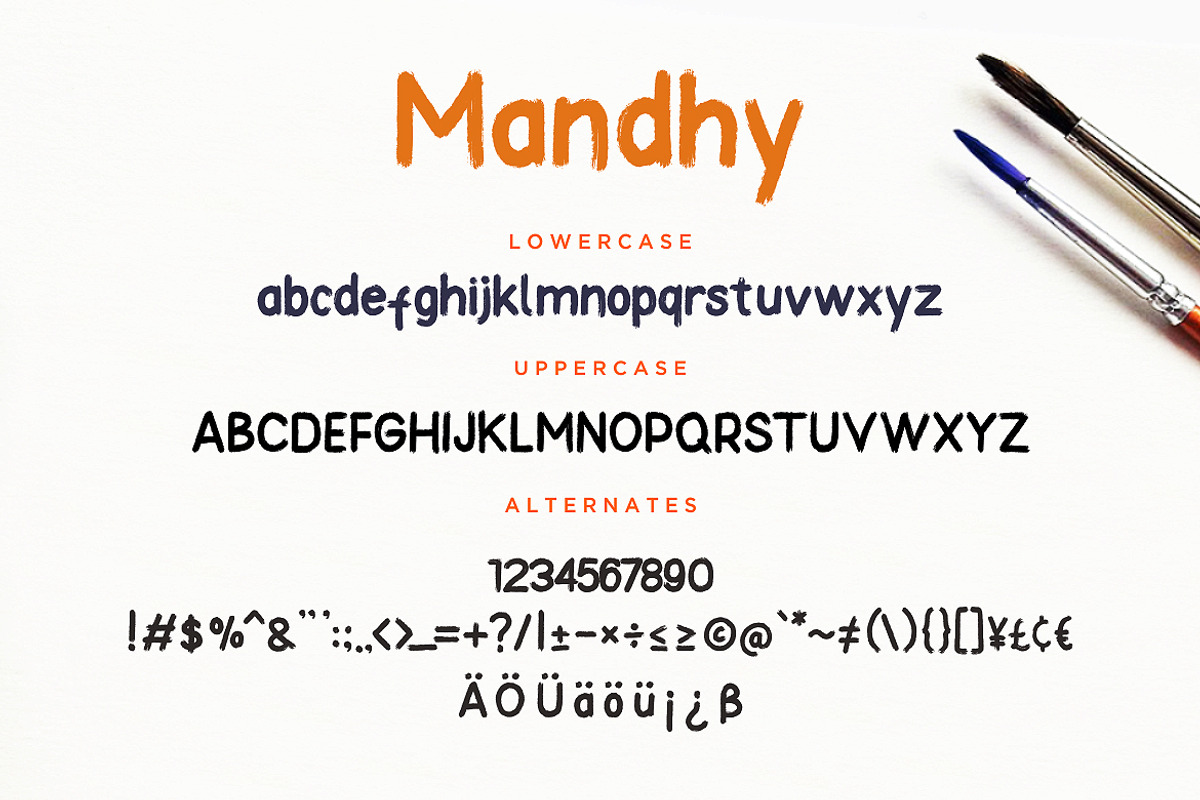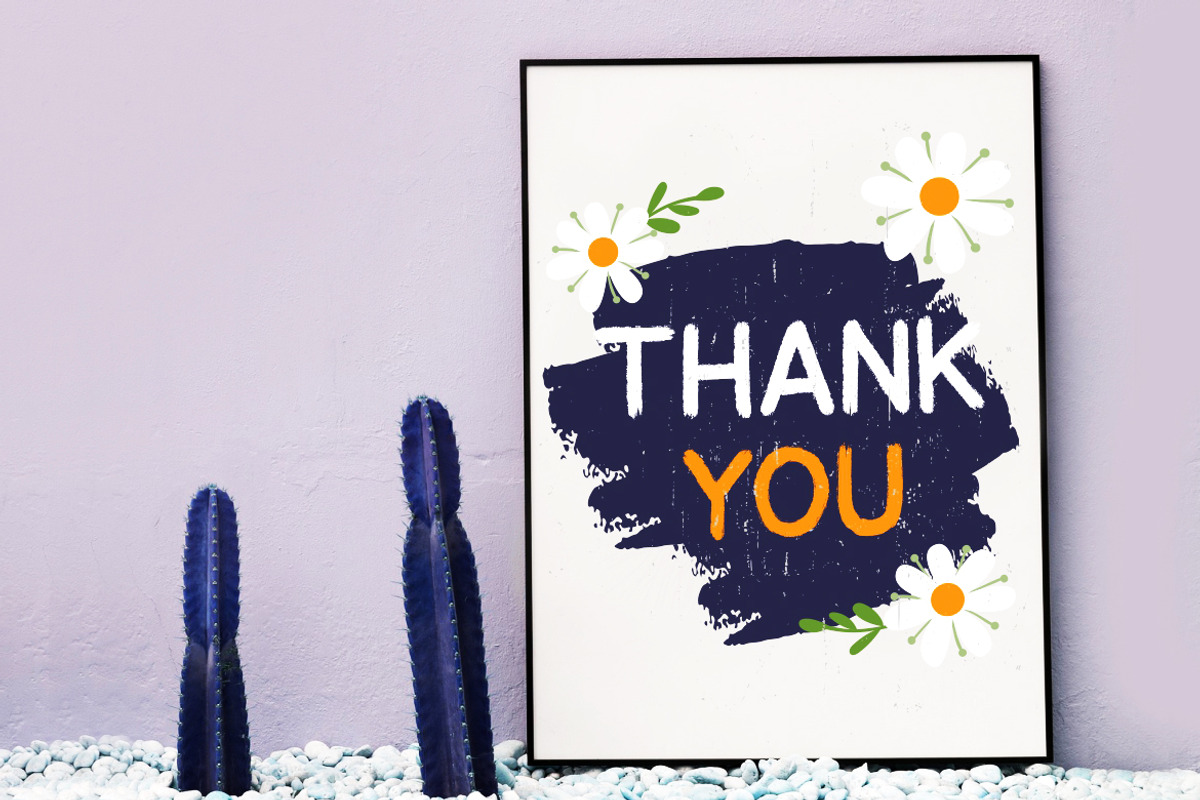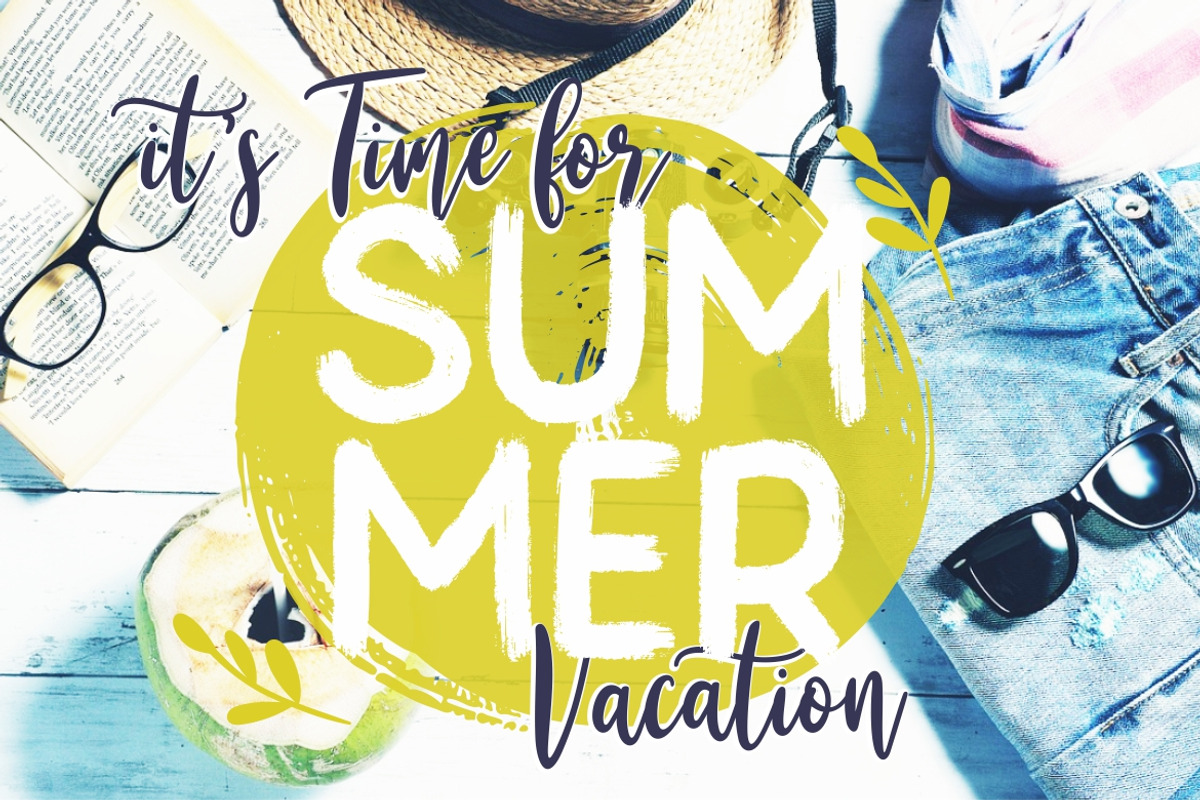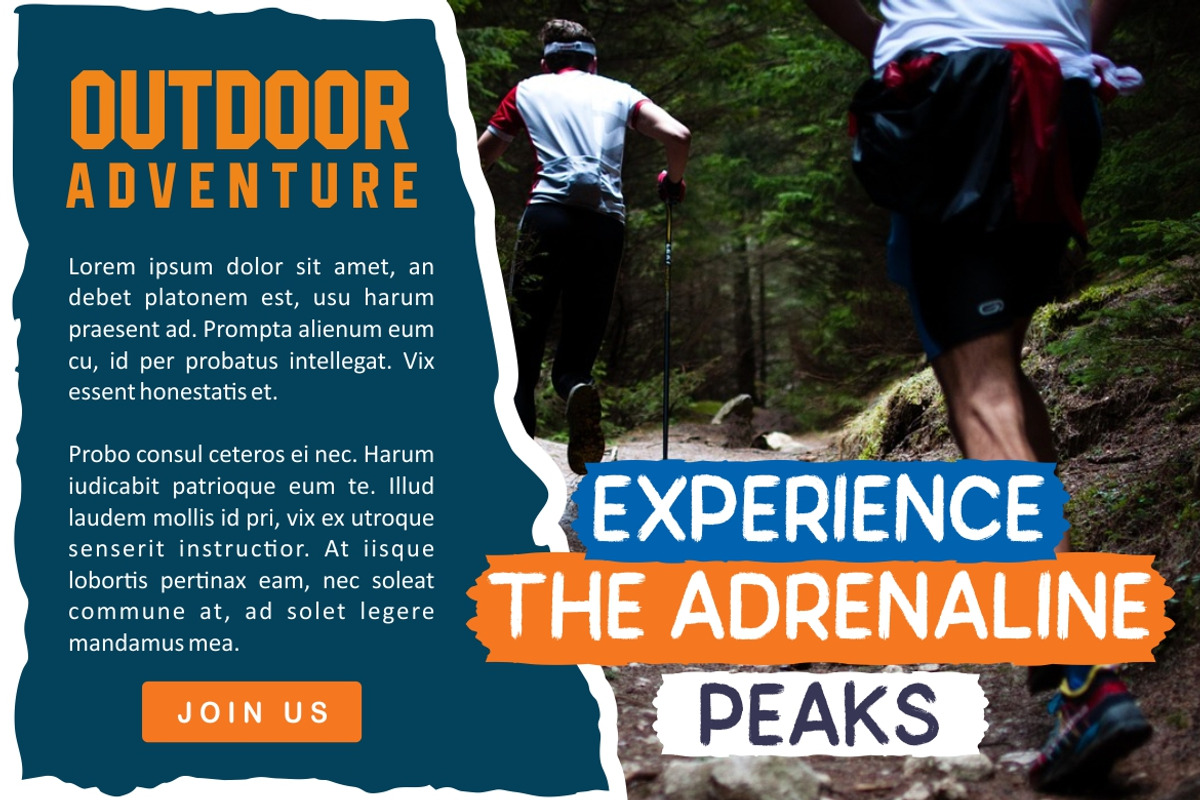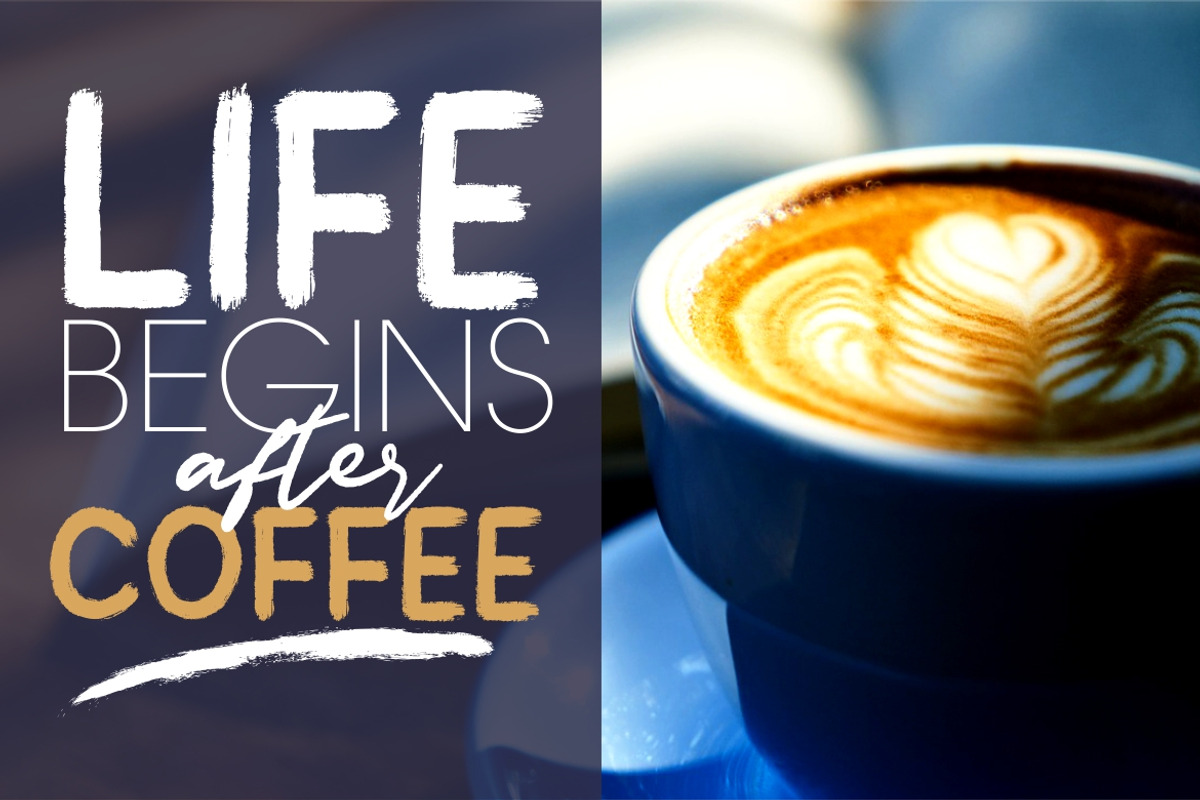
Mandhy Brush Sans Advertisement Font
Mandhy is serif sans fancy font with natural movement and brush style.
Mandhy is perfect for branding projects, logo, wedding designs, social media posts, advertisements, product packaging, product designs, label, photography, watermark, invitation, stationery and any projects that need handwriting taste.
- Fonts include multilingual support for; ä ö ü Ä Ö Ü ß ¿ ¡
Mandhy Brush Sans Advertisement Font by Creatype Studio fits naturally into Branding, posters, packaging, typography.